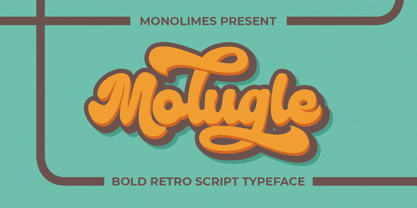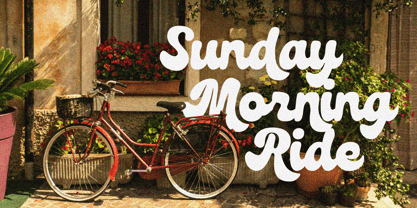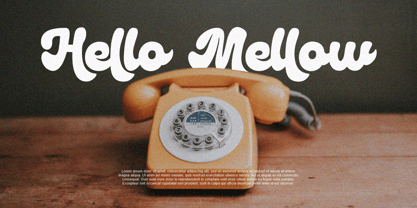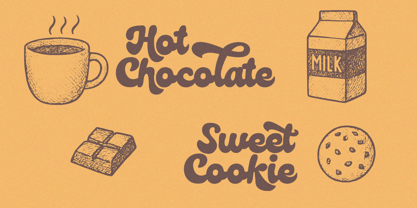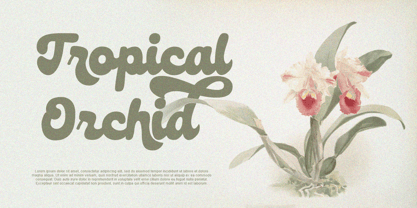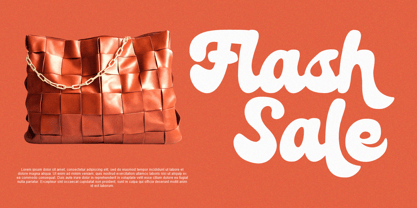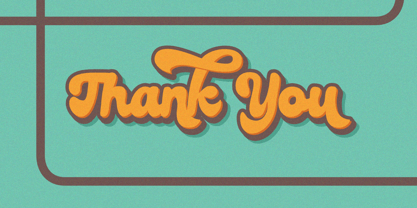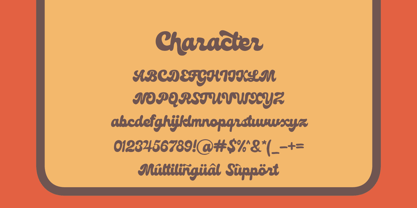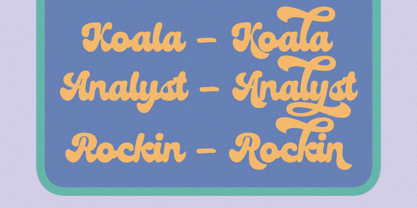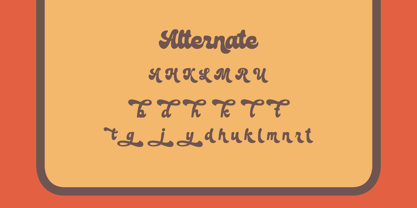
Molugle
by Monolimes
The Molugle Font Family was designed by Brainy Javanika Putra and published by Monolimes. Molugle contains 1 styles. More about this family
Molugle is a bold retro script typeface with a playful and energetic personality. It features thick, rounded strokes, smooth curves, and exaggerated swashes that create a strong vintage-inspired look. The lettering has a soft, bubble-like structure combined with dynamic flow, making it highly eye-catching and expressive. Molugle is perfect for logo design, branding, posters, food packaging, merchandise, and nostalgic-themed projects, especially those aiming for a fun, friendly, and standout visual identity.
Designers: Brainy Javanika Putra
Foundry: Monolimes